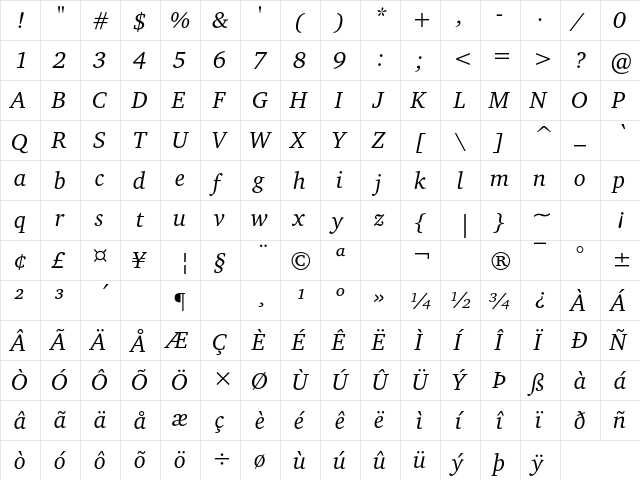
Charter BT Pro Italic
| Foundry | Bitstream Inc. |
| Designer | Matthew Carter |
Design Context for Charter BT Pro Typeface
Charter BT Pro takes a measured approach to typography — its balanced proportions and neutral character make it a reliable workhorse for both digital and print work. The dynamic lean of this cut emphasises speed and emphasis in any layout.
Pro Tip: Use Charter BT Pro for emphasis, pull quotes, and subheadings where its slanted energy can add rhythm to the layout.